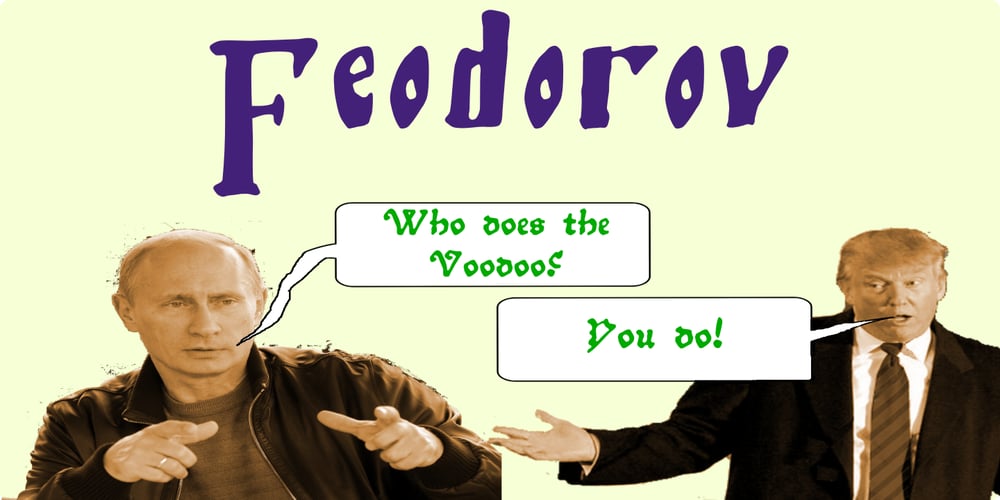
Feodorov Font Family was designed by Shane Brandes and published by Proportional Lime. Feodorov contains 4 styles and family package options. Ivan Feodorov, Ивaн Фёдоров, was the first printer in the Russian lands of the Muscovite Empire. He printed several notable books while he wasn’t busy making cannons. This font contains both OTF and TTF in regular and bold with over 1100 glyphs for our modern day needs, with Latin, Greek, and of course Cyrillic character sets.